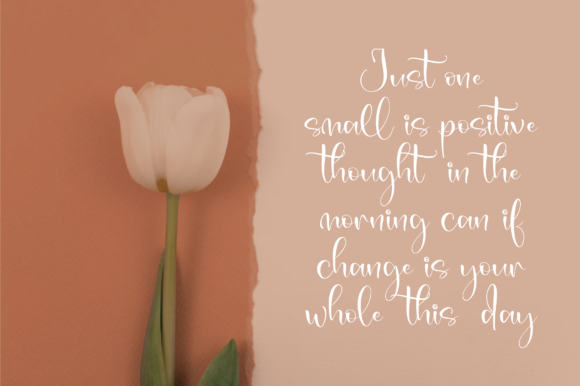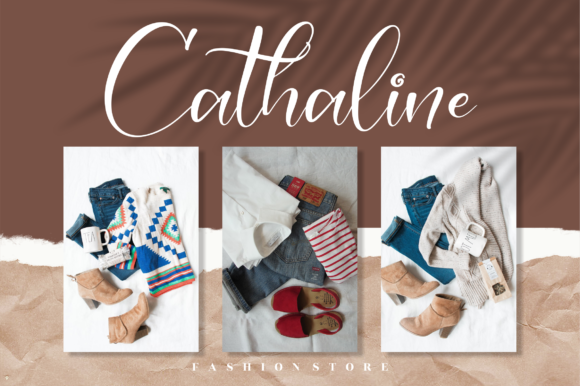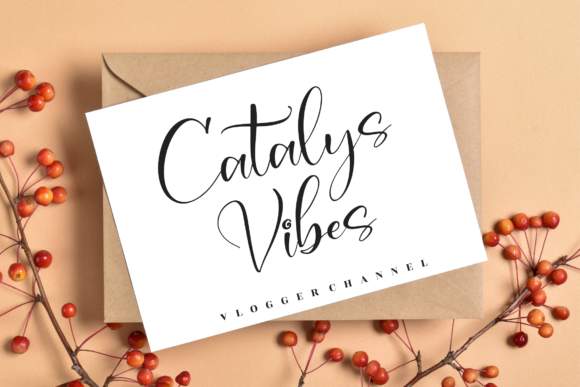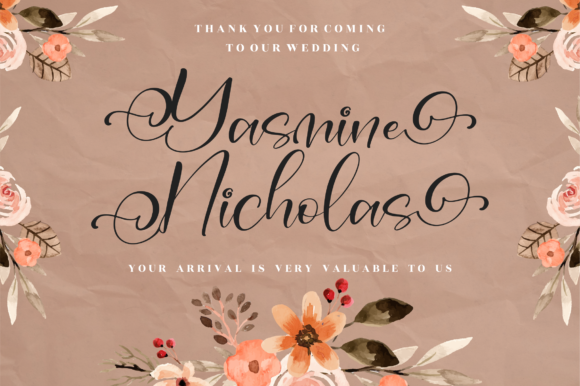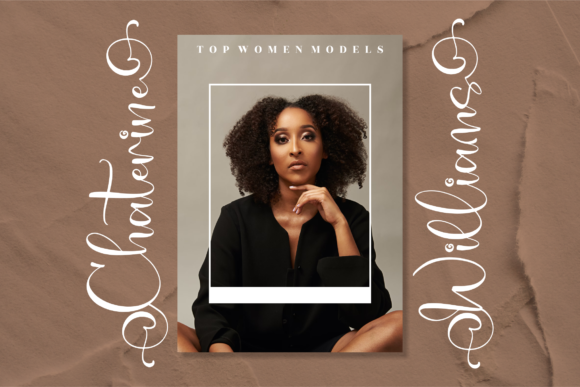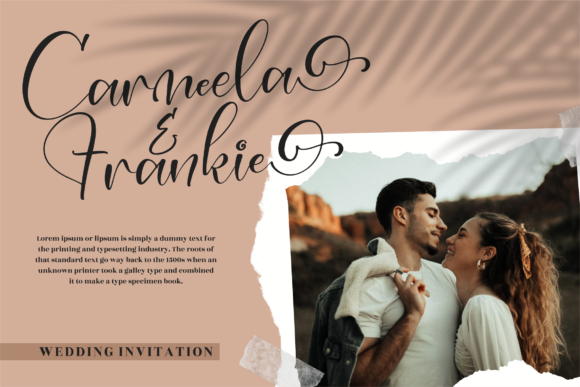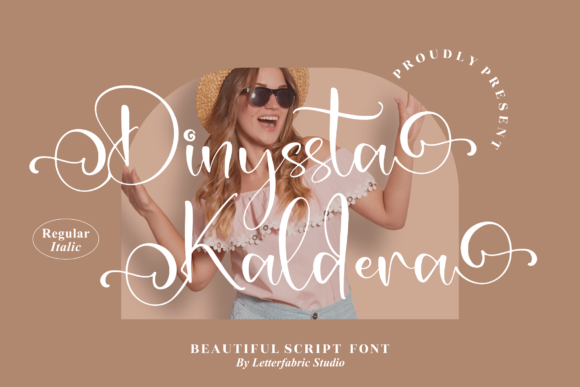
Discover the Elegance of Dinyssta Kaldera Font: Elevate Your Design Projects
In the world of typography, a beautiful script font can make all the difference in elevating a design project from ordinary to extraordinary. For designers and crafters looking for a touch of elegance and sophistication, Dinyssta Kaldera Font is an excellent choice. This stunning script font is versatile, making it suitable for a wide range of projects, from logos and branding to homeware designs, product packaging, and more.
What Makes Dinyssta Kaldera Font Special?
Dinyssta Kaldera Font stands out for its beautiful script style, which adds a touch of luxury and refinement to any project. Its elegant flow and intricate details make it perfect for designs that require a sophisticated look. Whether you’re working on a logo, a poster, or a product design, this font is sure to impress.
One of the key benefits of Dinyssta Kaldera Font is its versatility. It’s suitable for a wide range of projects, including:
- Logos and branding projects: Create a lasting impression with a unique and elegant logo.
- Homeware designs: Add a touch of sophistication to your home decor designs.
- Product packaging: Make your products stand out with beautiful and eye-catching packaging.
- Mugs, quotes, posters, shopping bags, t-shirts, book covers, name cards, invitation cards, greeting cards, labels, and more.
With Dinyssta Kaldera Font, you can create stunning designs for various applications, making it a valuable addition to your font collection.
Why Choose Dinyssta Kaldera Font?
There are many reasons why designers and crafters choose Dinyssta Kaldera Font for their projects. Here are a few:
- Elegance and sophistication: This font adds a touch of luxury and refinement to any design.
- Versatility: It’s suitable for a wide range of projects, from logos to product packaging.
- High-quality design: The font is designed with intricate details and elegant flow.
Tips for Using Dinyssta Kaldera Font
To get the most out of Dinyssta Kaldera Font, here are a few tips:
- Experiment with different sizes and colors: Find the perfect combination to make your design stand out.
- Pair it with other fonts: Create a unique and interesting contrast by pairing Dinyssta Kaldera Font with other fonts.
- Use it for headlines and titles: The font’s elegance and sophistication make it perfect for headlines and titles.